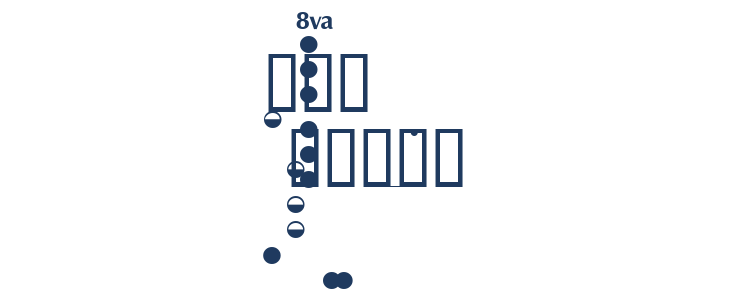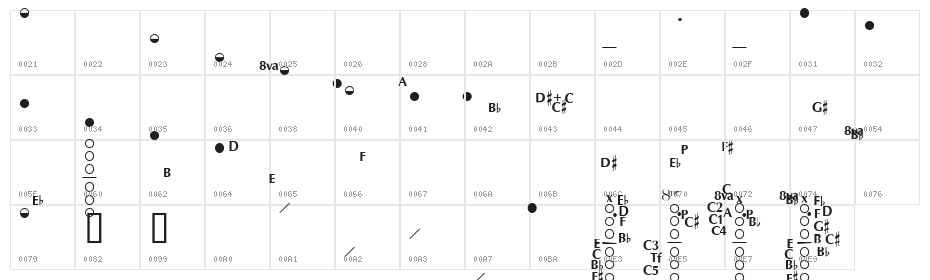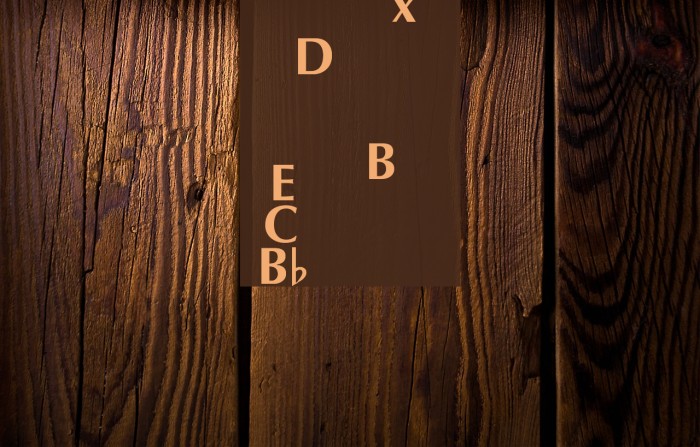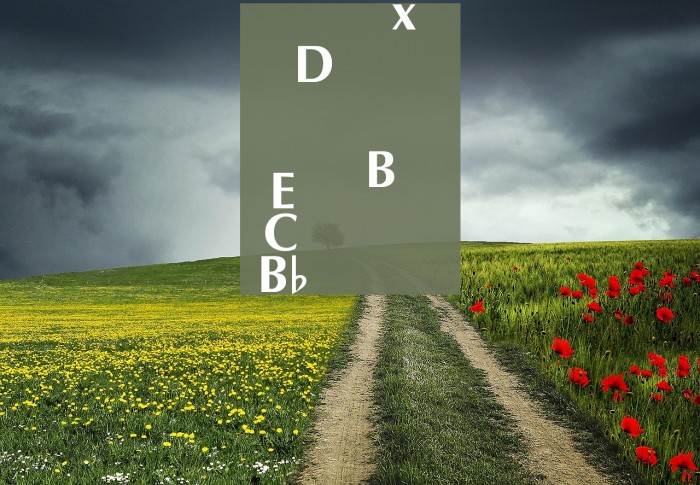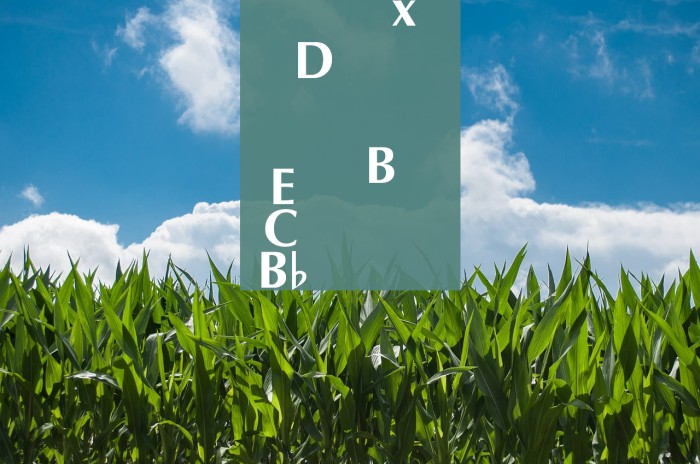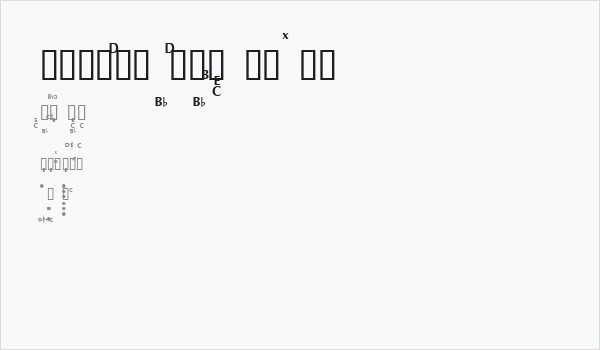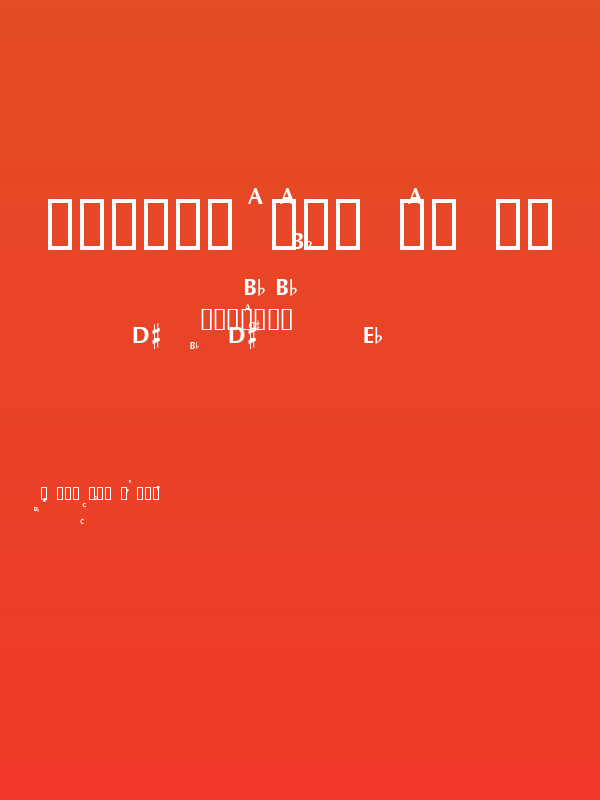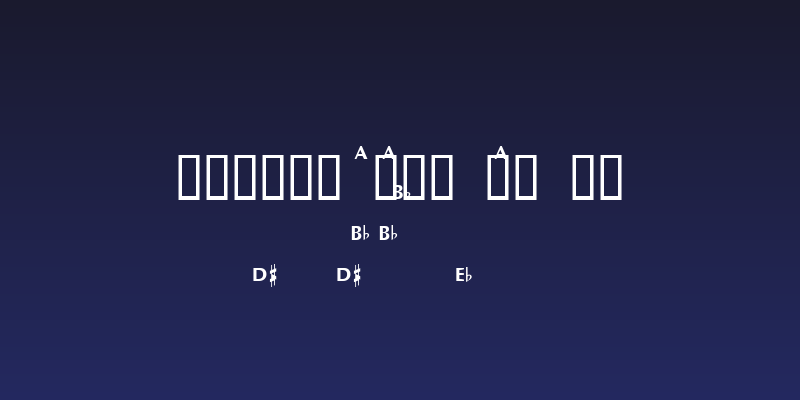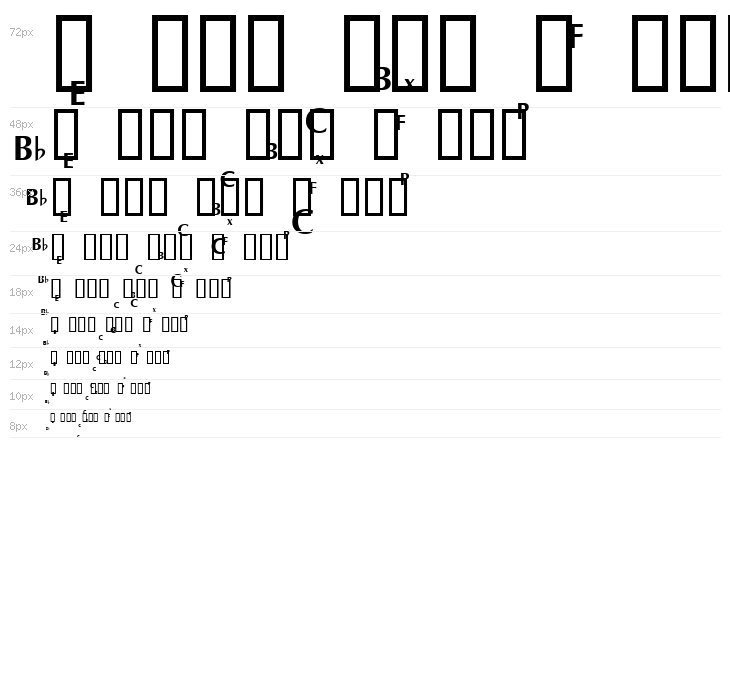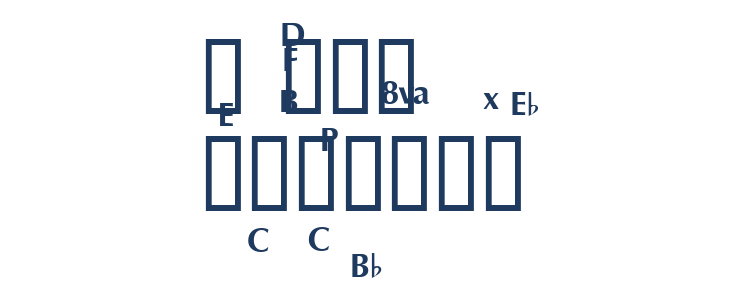
Woodwind Tablature Sax US Font
Woodwind Tablature Sax US Description
This is a specialized pictographic font designed for woodwind tablature notation, featuring rectangular outlines and filled circles to represent fingerings, along with standard musical symbols and text for notes and accidentals.
| Overall Style | Functional, instructional, pictographic |
| Use Case | Music notation, educational diagrams, instructional graphics |
| Proposed Projects | Woodwind fingering charts, music education materials, instructional books, sheet music for saxophone. |